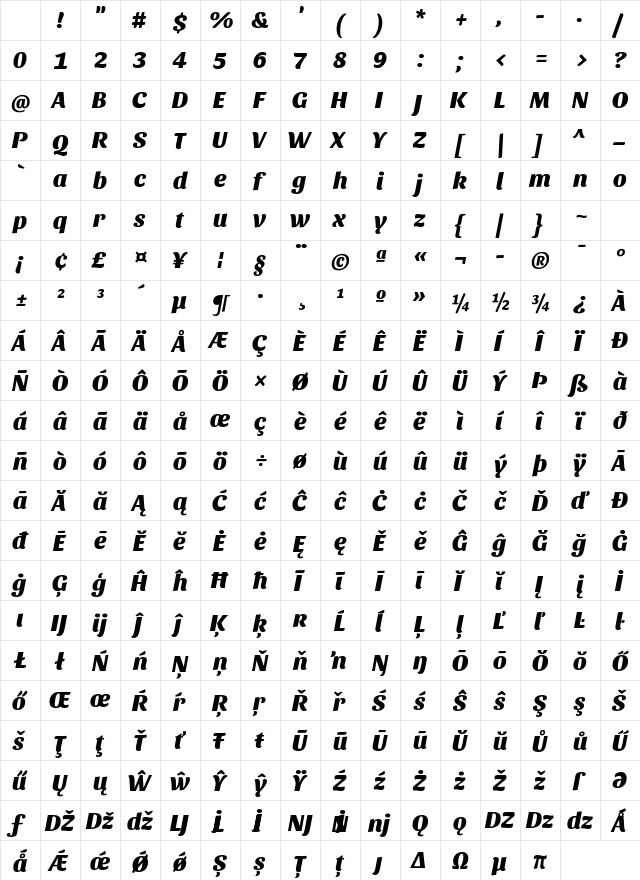
Sansita VF Beta is a composed and adaptable typeface that performs quietly and consistently across a wide range of design contexts. The slanted form adds forward momentum and visual energy.
Pro Tip: Use Sansita VF Beta for emphasis, pull quotes, and subheadings where its slanted energy can add rhythm to the layout.